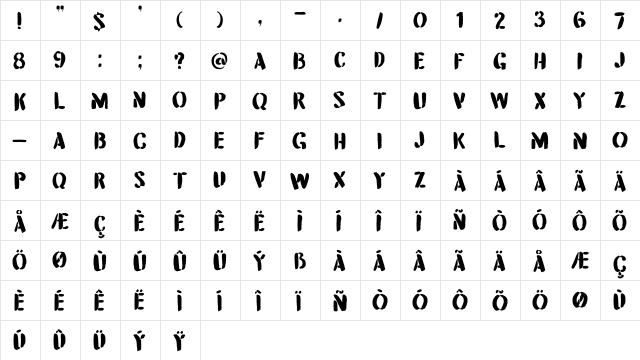
DK Attention Seeker Regular
| Foundry | David Kerkhoff |
| Designer | David Kerkhoff |
Design Context for DK Attention Seeker Typeface
DK Attention Seeker is a composed and adaptable typeface that performs quietly and consistently across a wide range of design contexts.